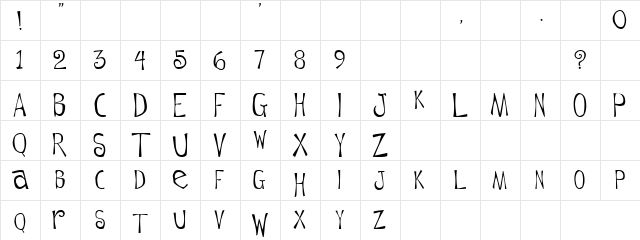
Fullflaw Regular
Design Context for Fullflaw Typeface
Fullflaw is a composed and adaptable typeface that performs quietly and consistently across a wide range of design contexts.